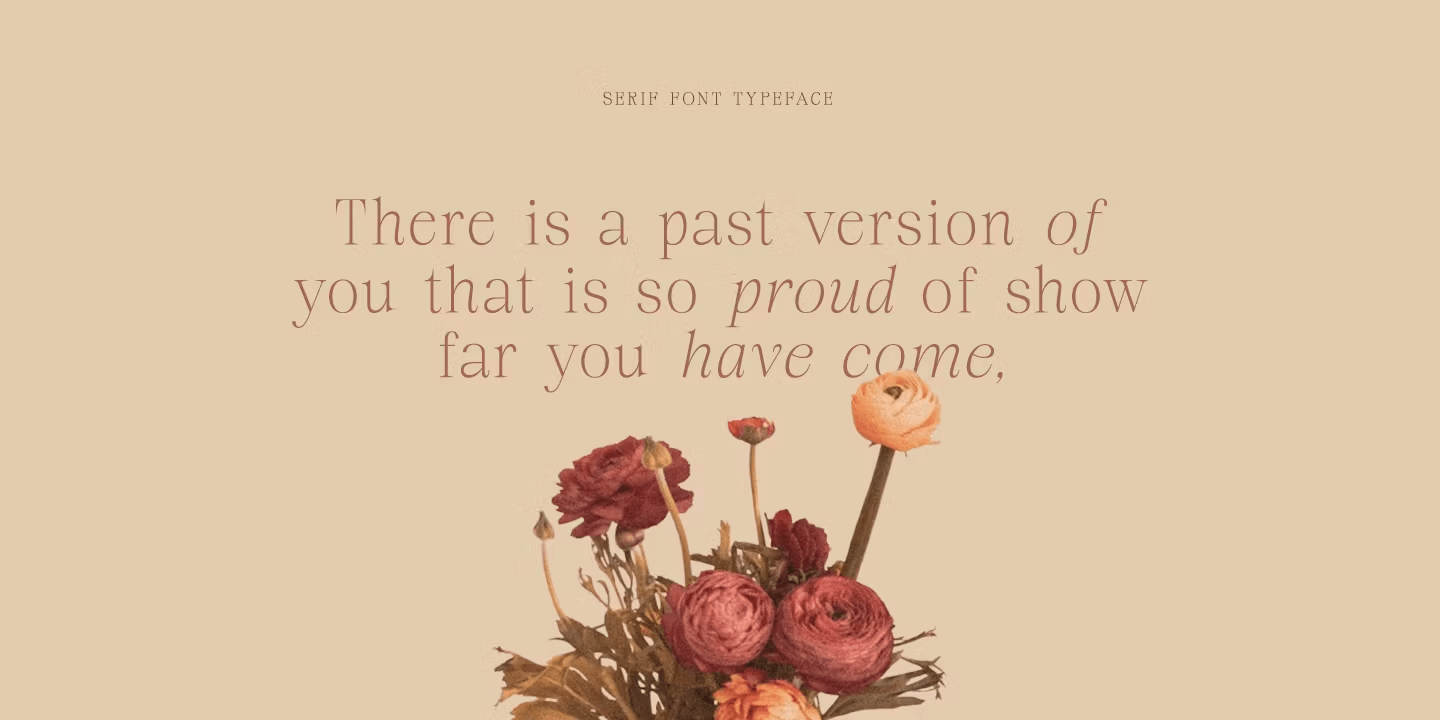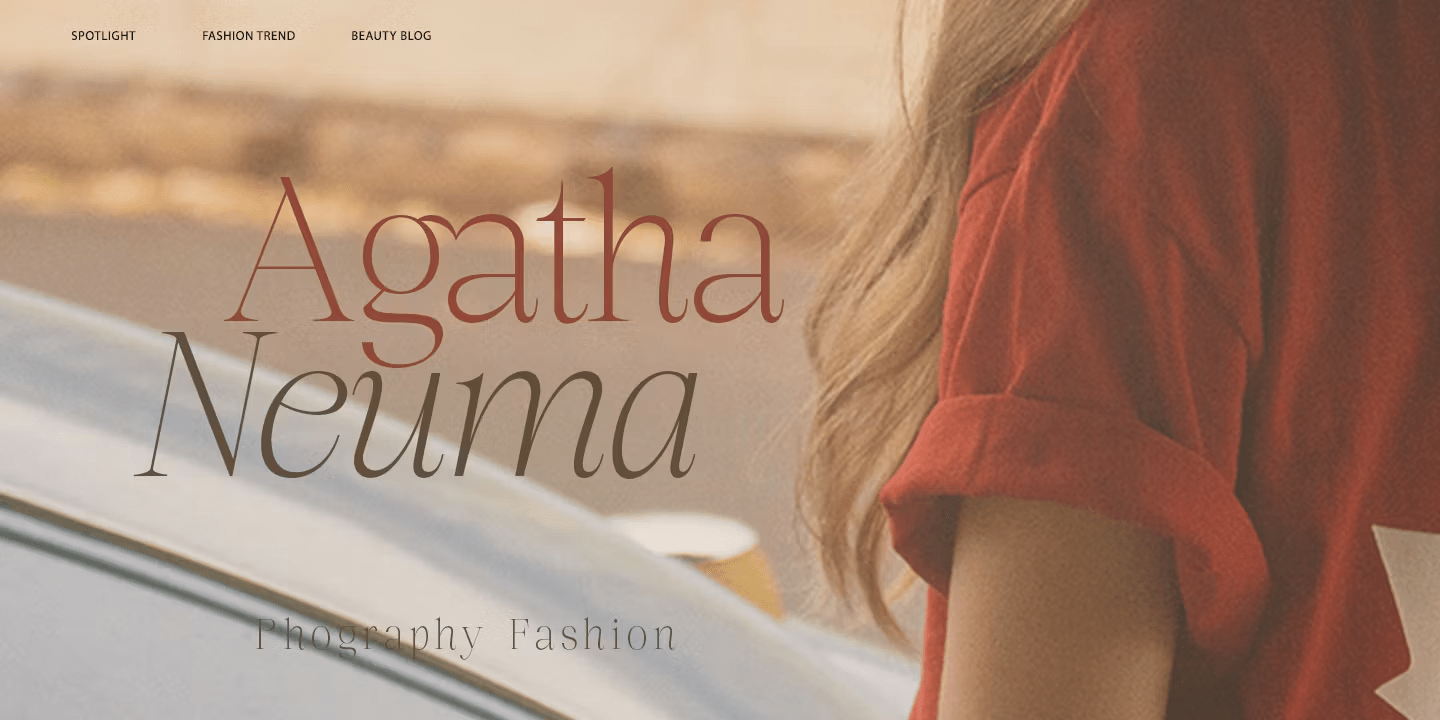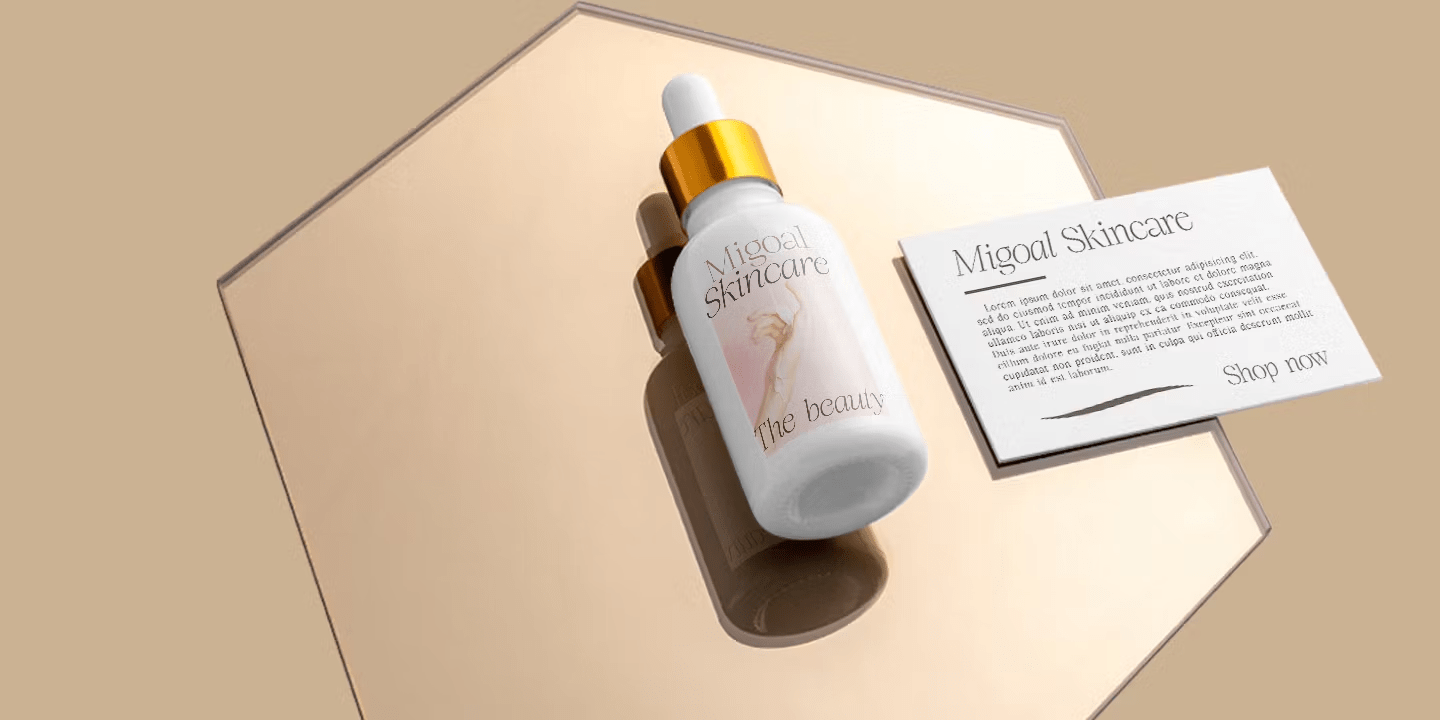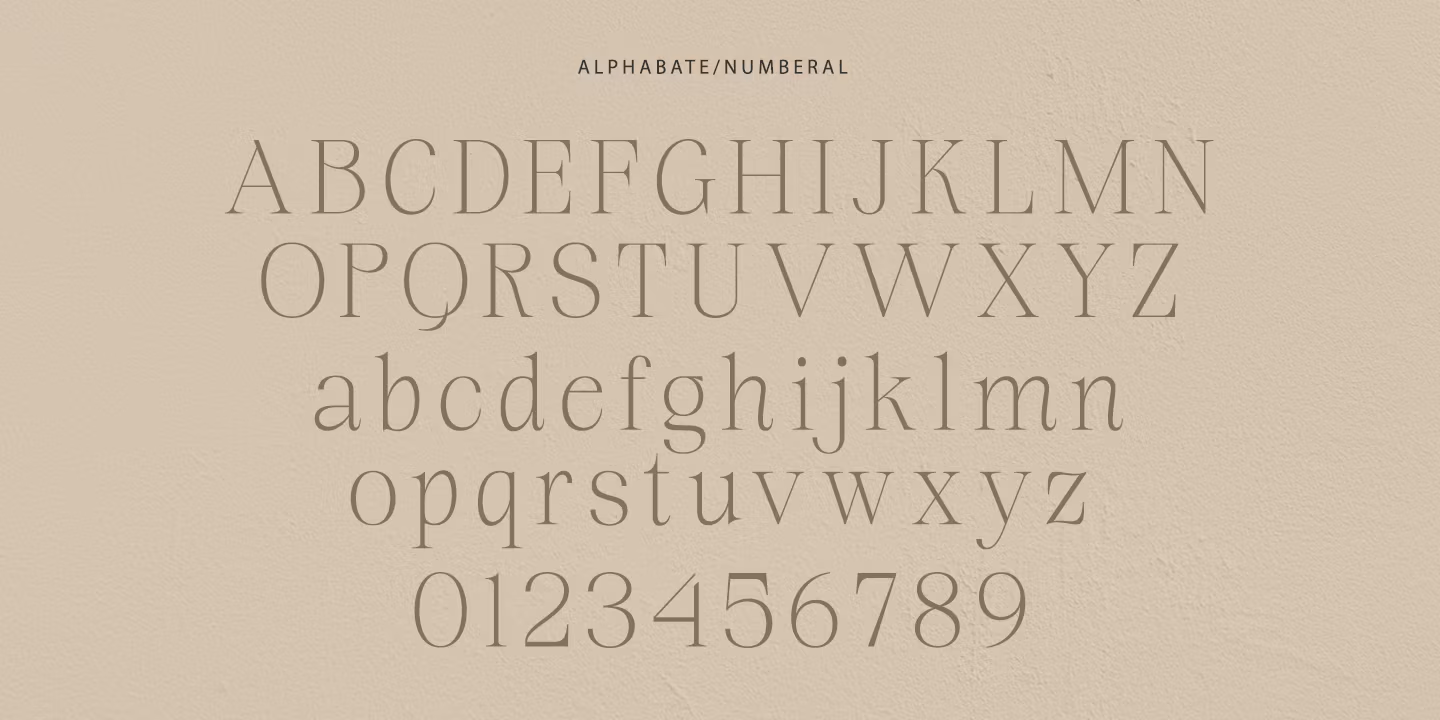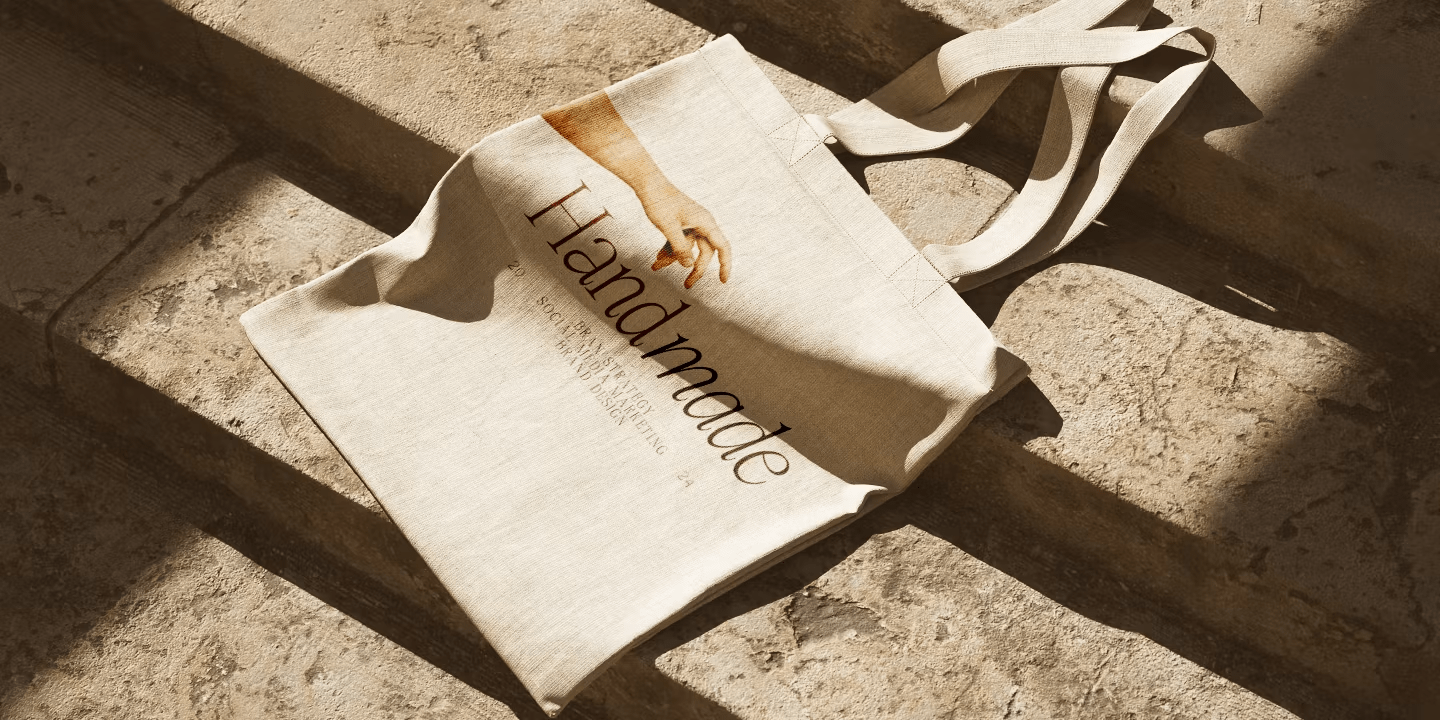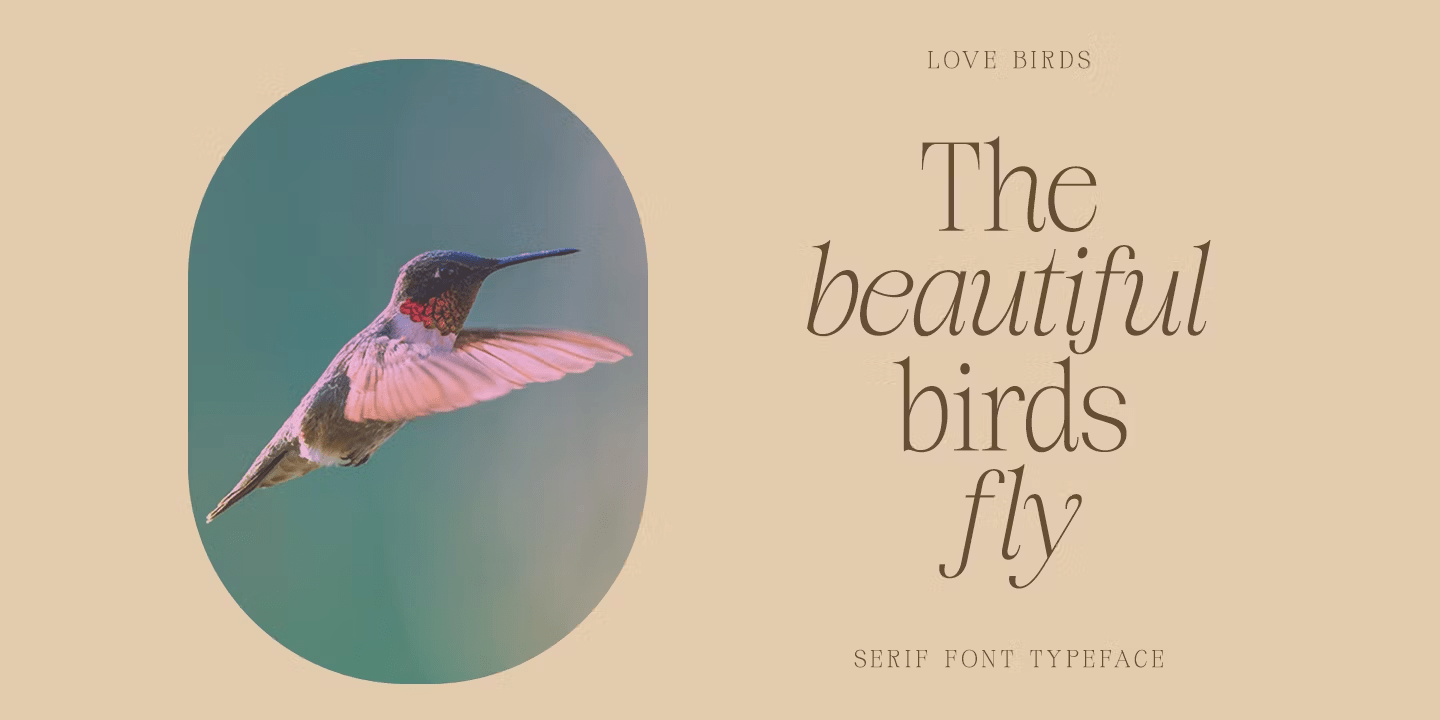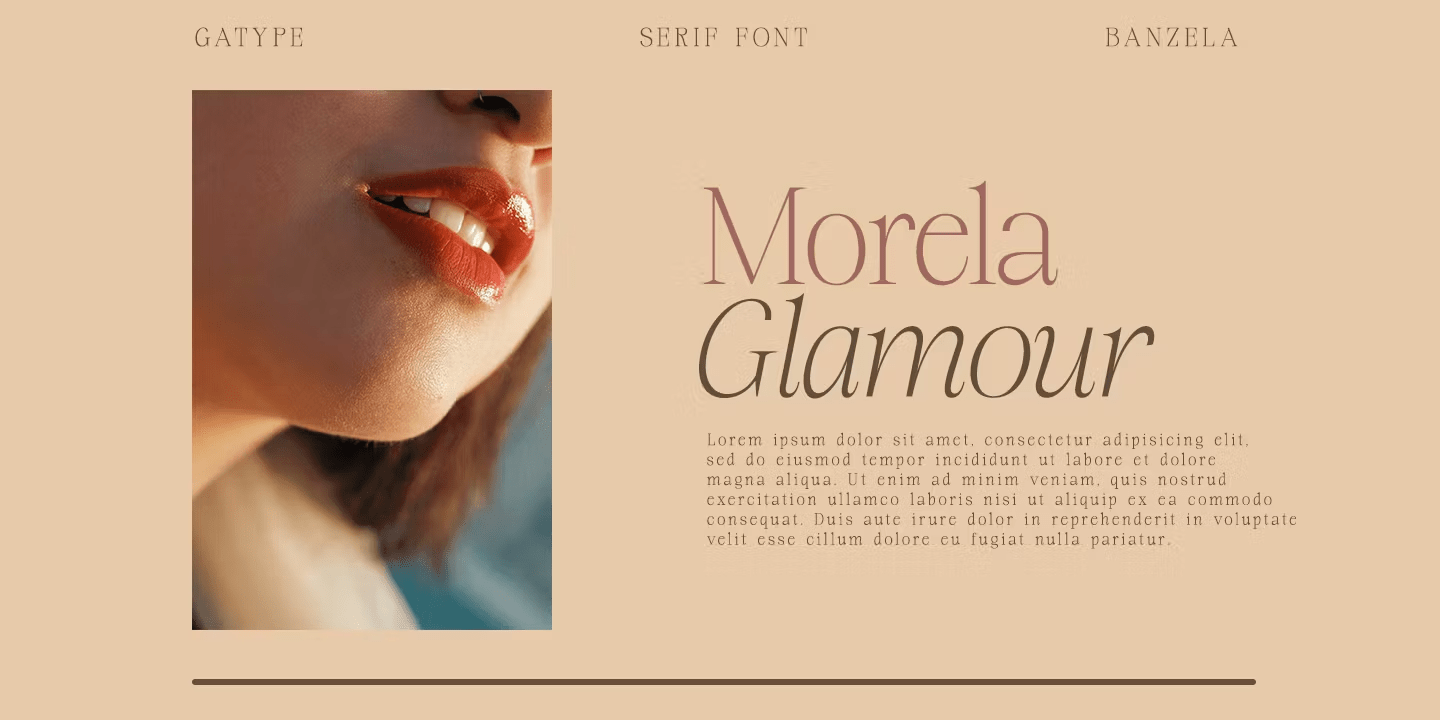
Banzela
The Banzela font is a serif typeface characterized by a classic and elegant look. Fonts like Banzela typically have varying thicknesses within each letter, adding visual depth and enhancing readability. The combination of smooth and bold lines draws attention, making it an excellent choice for designs that aim to appear exclusive or premium.
This font is often used for designs aiming to convey a formal, luxurious, or antique atmosphere, making it ideal for headlines, logos, or branding that needs a classic touch.